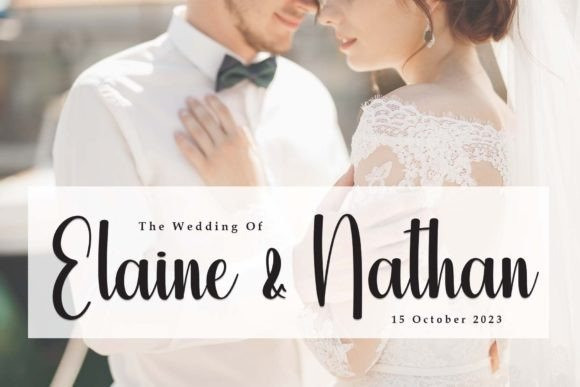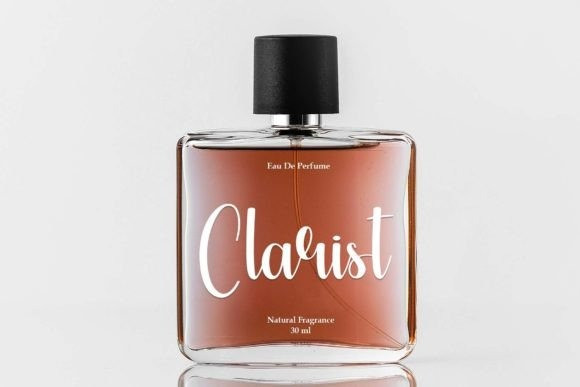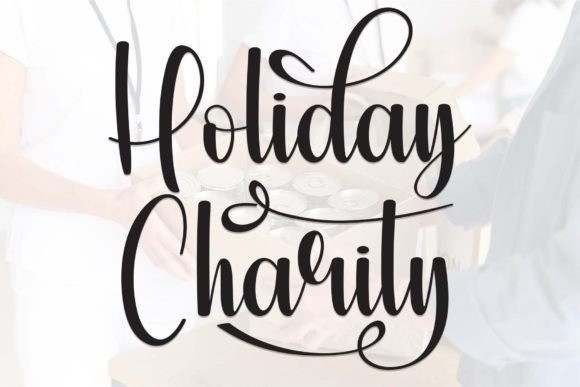
Holiday Charity Font
Holiday Charity Font is a sweet and cursive handwritten font. This gentle font will look gorgeous on a variety of design ideas. It will add a joyful and romantic touch to each of your projects!